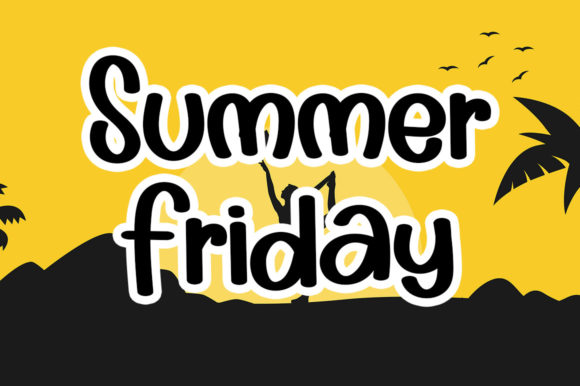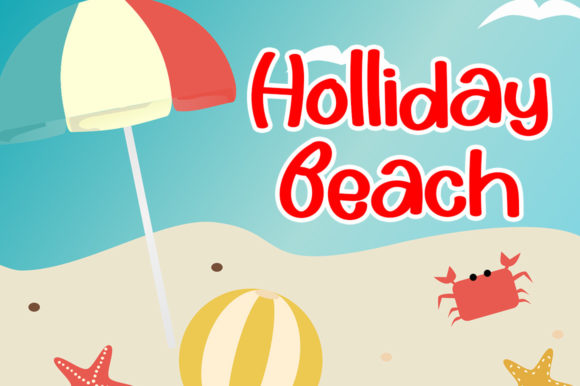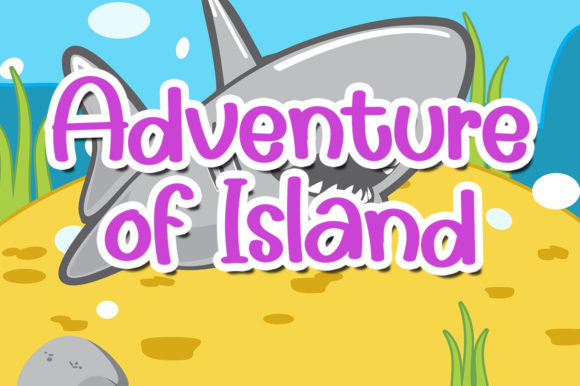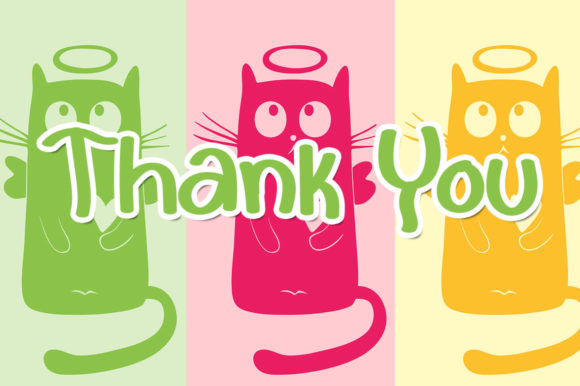
Introduction to Hello Molly Font
Have you ever stared at a blank page, trying to bring a creative project to life, only to feel stuck and uninspired? That’s where the perfect font can be a game-changer. For designers, finding the right font can be the key to unlocking a design’s true potential. And that’s exactly what the Hello Molly Font offers – a sweet and quirky handwritten font that’s sure to add a touch of personality to any design.
With its natural and unique style, the Hello Molly Font is incredibly versatile, making it a valuable resource for designers of all levels. Whether you’re working on a high-quality logo, creating a social media graphic, or simply need a design element for a creative project, this font is sure to impress. And the best part? It’s available for free download, making it an accessible design resource for anyone.
Key Features of Hello Molly Font
- Includes a wide range of characters, including uppercase and lowercase letters, numbers, and punctuation
- Designed with a clean and modern aesthetic, making it perfect for a variety of design resources
Honest Review: Hello Molly Font
- High quality design that’s perfect for a variety of creative projects
- Transparent background, making it easy to use in different design settings
- Unique and playful style that adds a personal touch to any project
That being said, there are a few limitations to keep in mind:
- Some characters may not be as legible at smaller font sizes
- Not ideal for projects that require a more formal or traditional font style
Overall, I’m really impressed with the Hello Molly Font. It’s a fantastic design resource that’s perfect for anyone looking to add a little creativity to their projects. With its high quality design and transparent background, it’s easy to see why this font is a favorite among designers.
Hello Molly Font is a high-quality, free download design resource perfect for any creative project that requires a unique and stylish touch. With its transparent background, this font is versatile and easy to use in a variety of applications.
Tips for Getting the Most Out of Hello Molly Font
To get the most out of Hello Molly Font, try using it in combination with other design elements, such as graphics and images.
Also, experiment with different font sizes and colors to add visual interest to your design.
Common Use Cases for Hello Molly Font
Hello Molly Font is perfect for a variety of creative projects, including:
Graphic design
Web design
Print design
Marketing materials